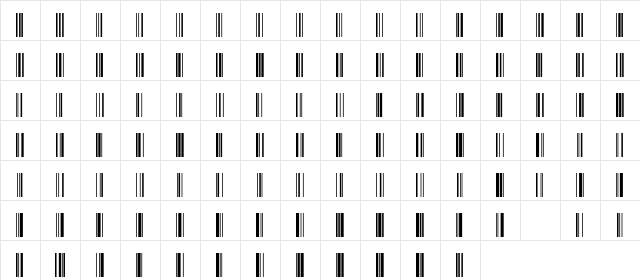
Code128VeryWide Regular
| Foundry | Azalea Software, Inc. |
| Designer | Jerry Whiting |
Design Context for Code128VeryWide Typeface
Code128VeryWide brings the precise, column-aligned rhythm of monospaced typography to designs that value technical clarity and systematic order.